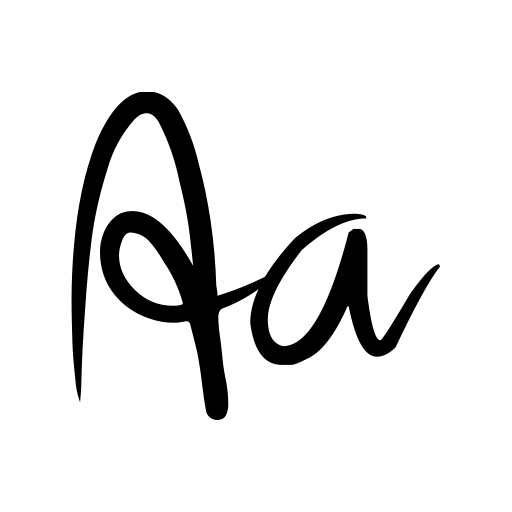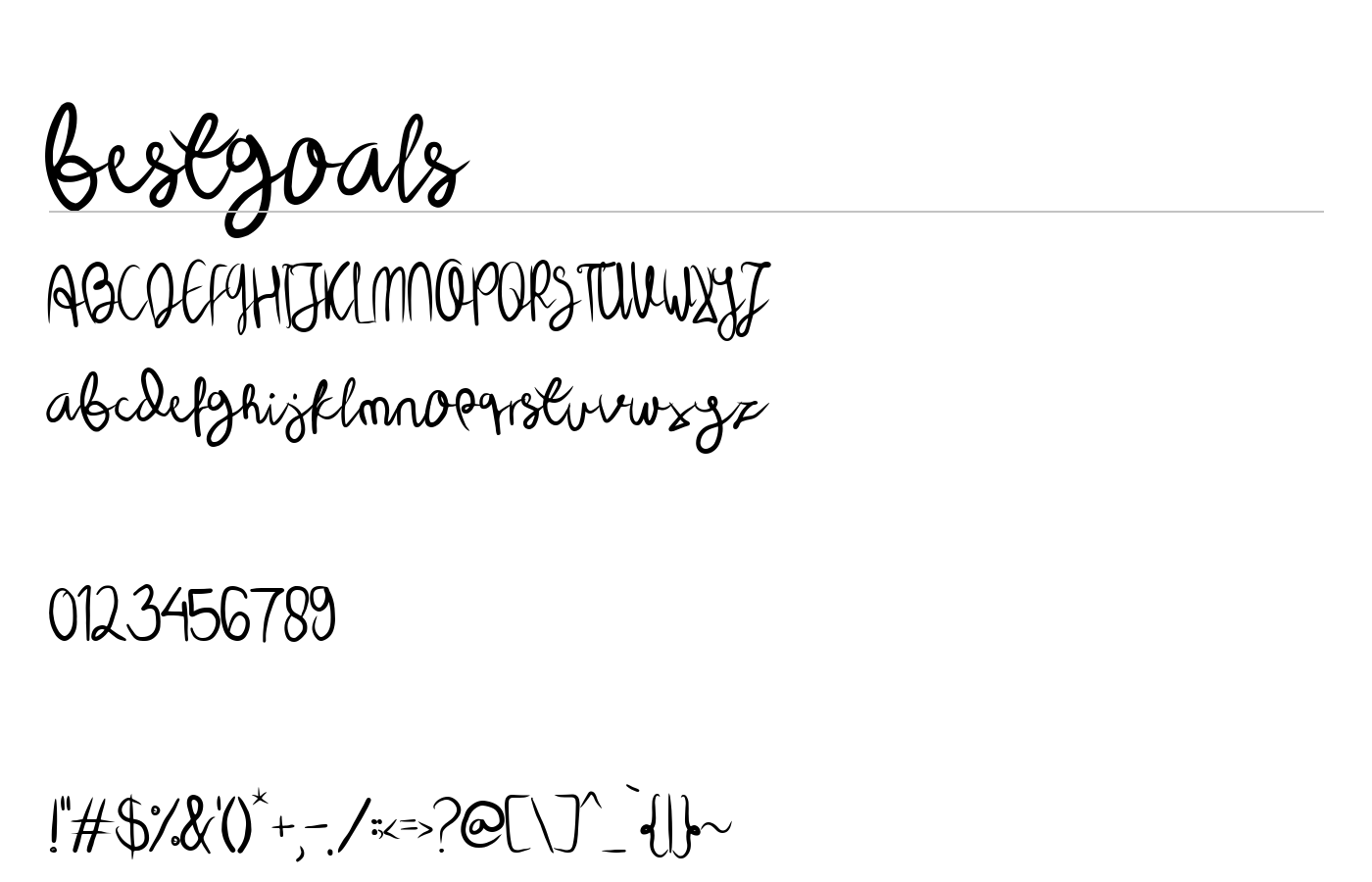
Bestgoals is a playful and casual script font with a hand-drawn feel, featuring tall, slender letterforms and lively, uneven strokes that give it a whimsical charm. Its light weight and irregular character shapes make it perfect for informal branding, creative projects, or fun headlines where a friendly, approachable personality is desired. This font works especially well in designs that want to convey warmth and individuality, such as invitations, logos, and artistic packaging.
bestgoals Font